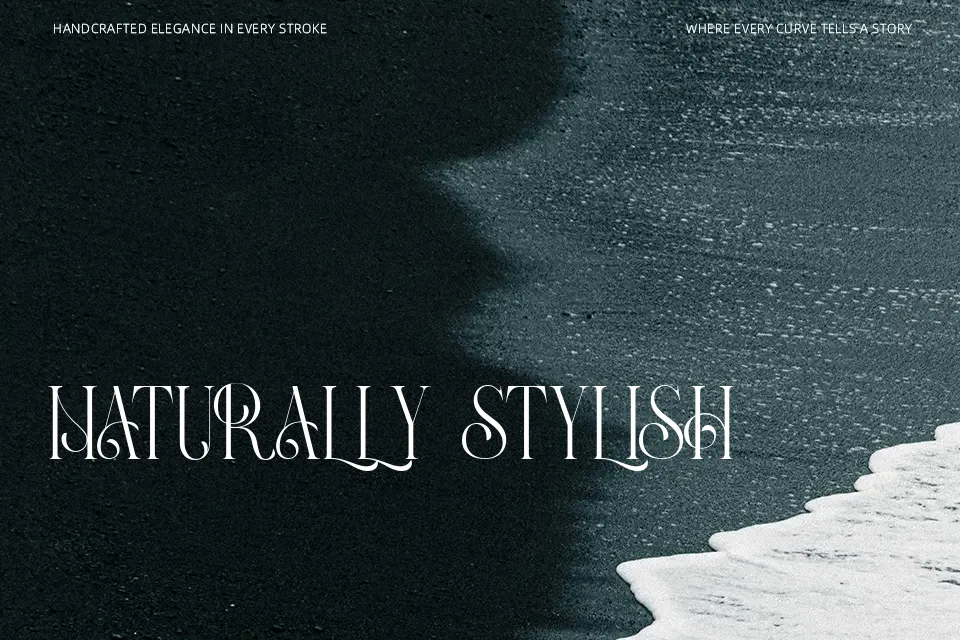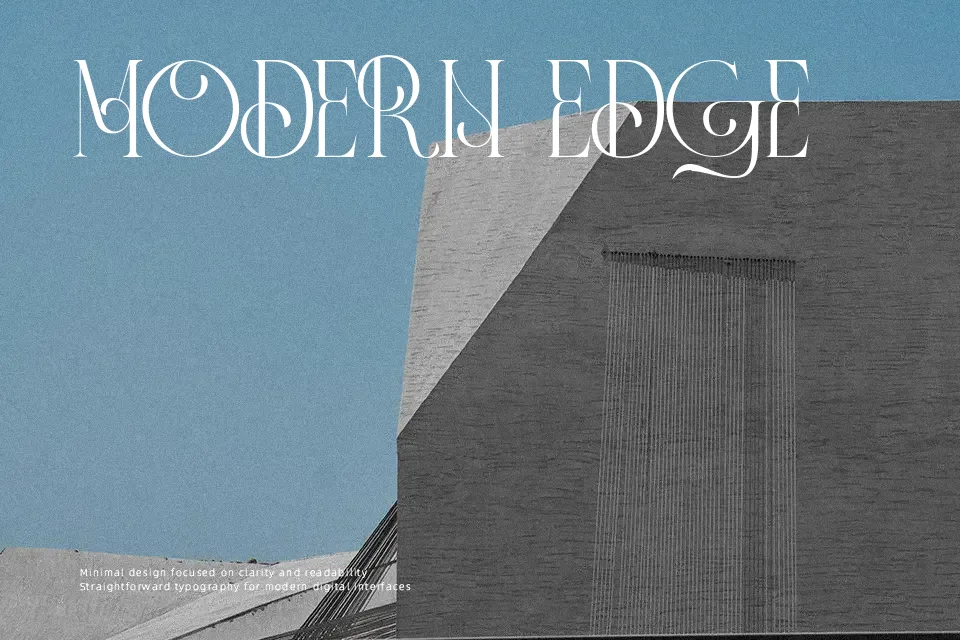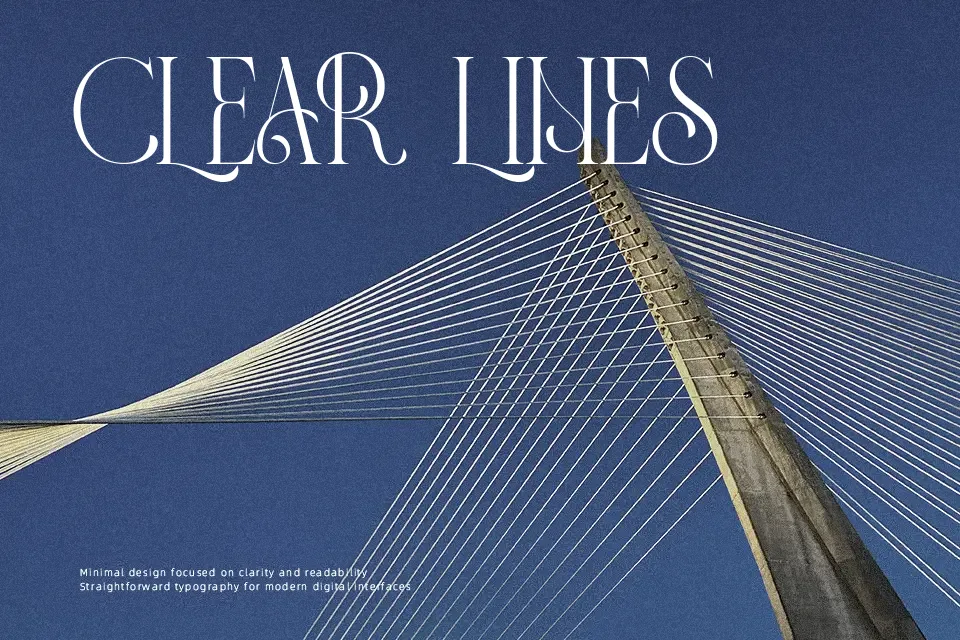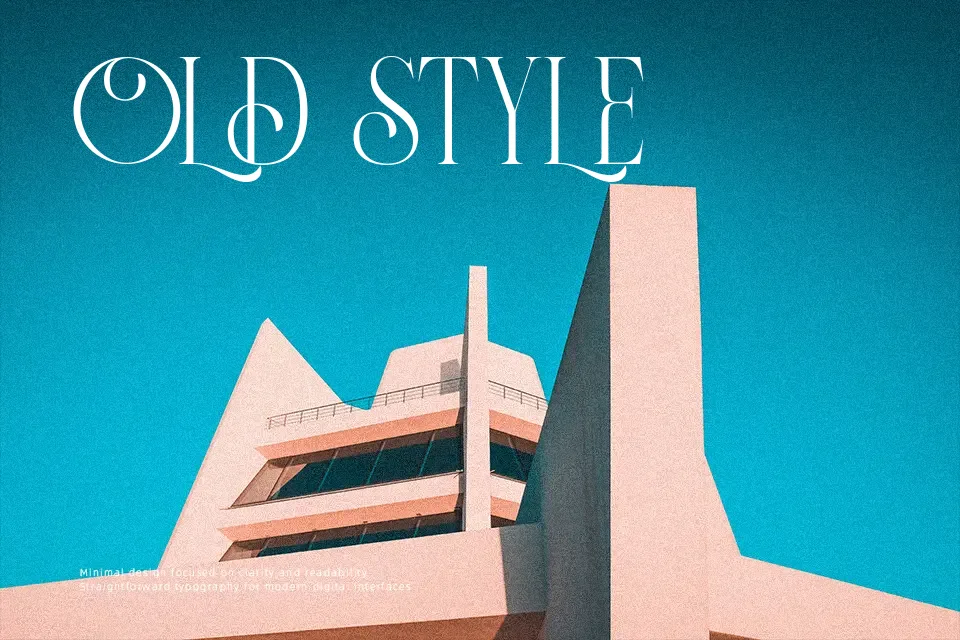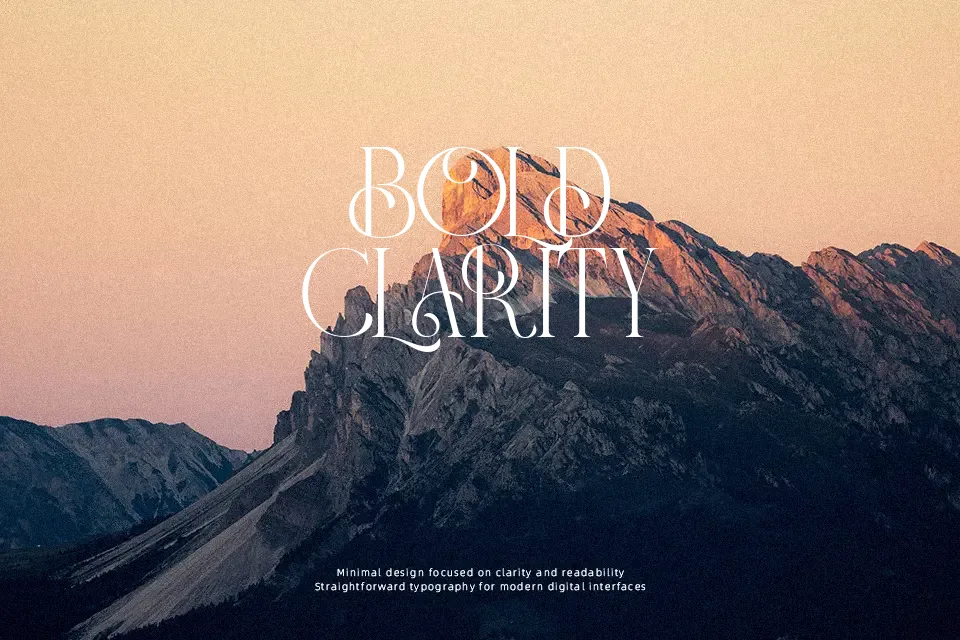
Panorama Ligatures Font
Panorama Ligatures Font works best when set large, where its serif construction, contrast between strokes, and carefully shaped letterforms remain visible. The proportions feel balanced rather than compressed, while the spacing gives short words a composed, display-oriented rhythm. Its ligature emphasis can add character to titles, cover designs, and premium-looking packaging without relying on heavy weight alone. The typeface is most convincing in brief, prominent text; its decorative detail and finer serif elements make long passages and small captions less comfortable to read.
Best For: fashion branding,wedding invitations,book cover titles,poster headlines
Not Ideal For: long paragraph text,small interface labels,technical manuals,dense data tables
Perfect for branding, fashion, and invitation, with a classic and display style.